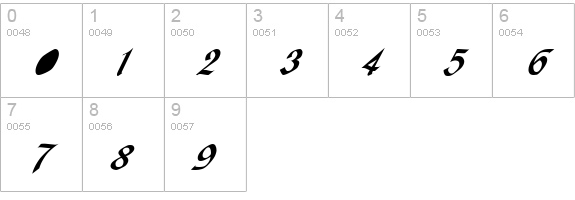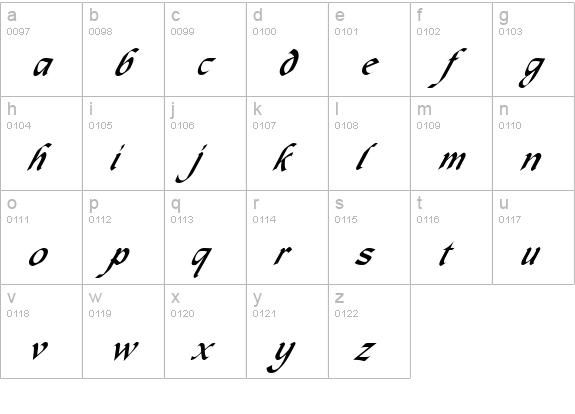
Metermiser Italic Font Details
Metermiser Italic is a distinctive, italic variant in the Metermiser typeface family \xE2\x80\x94 well suited to design and typography projects.
Metermiser Italic is a sleek and stylish font that exudes elegance and sophistication. With its slanted and italicized design, this font adds a touch of modernity to any project or design. The graceful curves and sharp angles of Metermiser Italic make it perfect for conveying a sense of luxury and refinement. What sets Metermiser Italic apart is not only its aesthetic appeal but also its accessibility. This exquisite font is available for free download at FontsMarket.com, making it easily accessible to all designers and creatives looking to elevate their work with a touch of class. Whether you're working on a logo, branding materials, website design, or any other project that requires a touch of elegance, Metermiser Italic is sure to make a lasting impression. Download it today and bring a touch of sophistication to your designs.